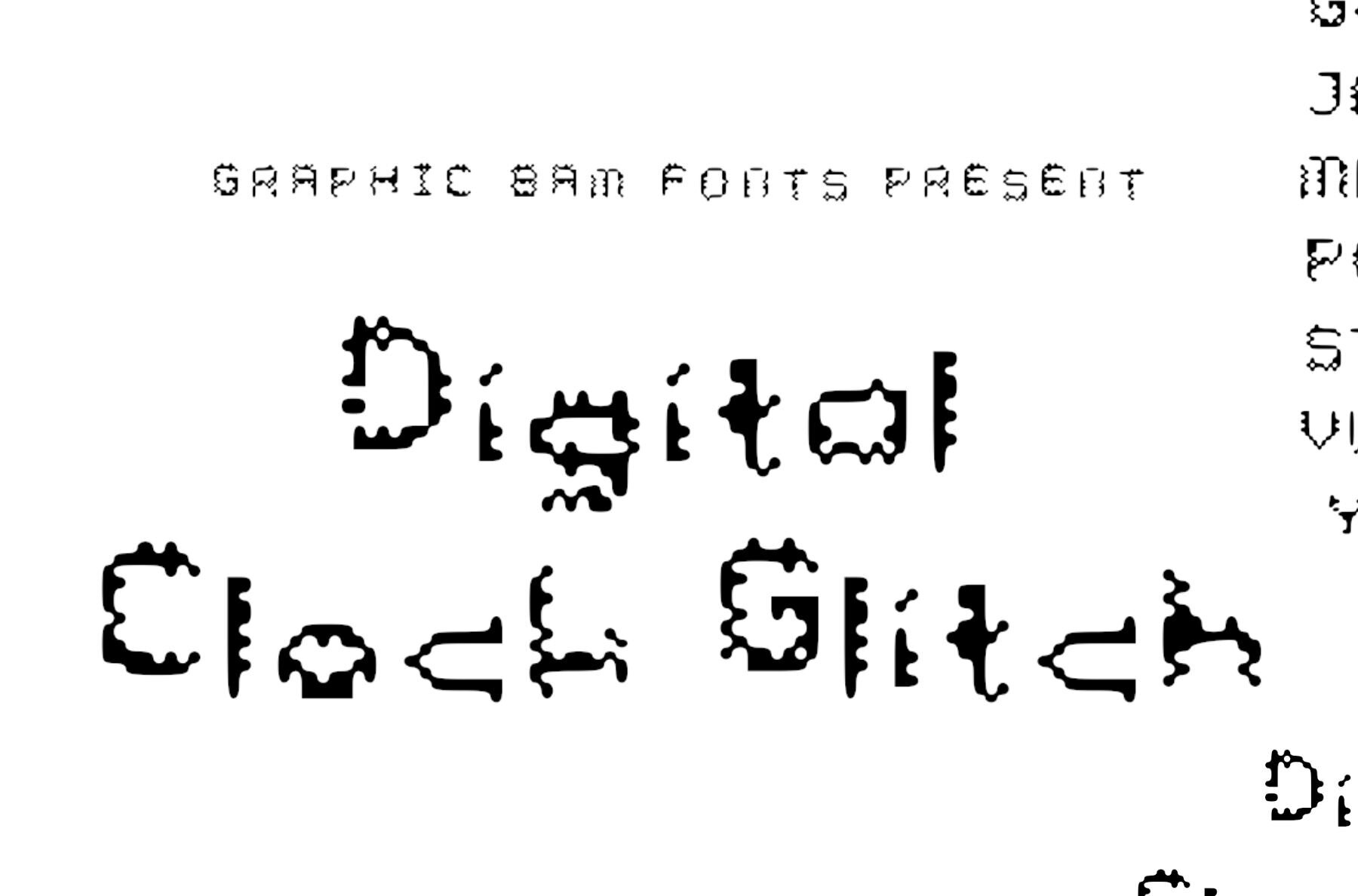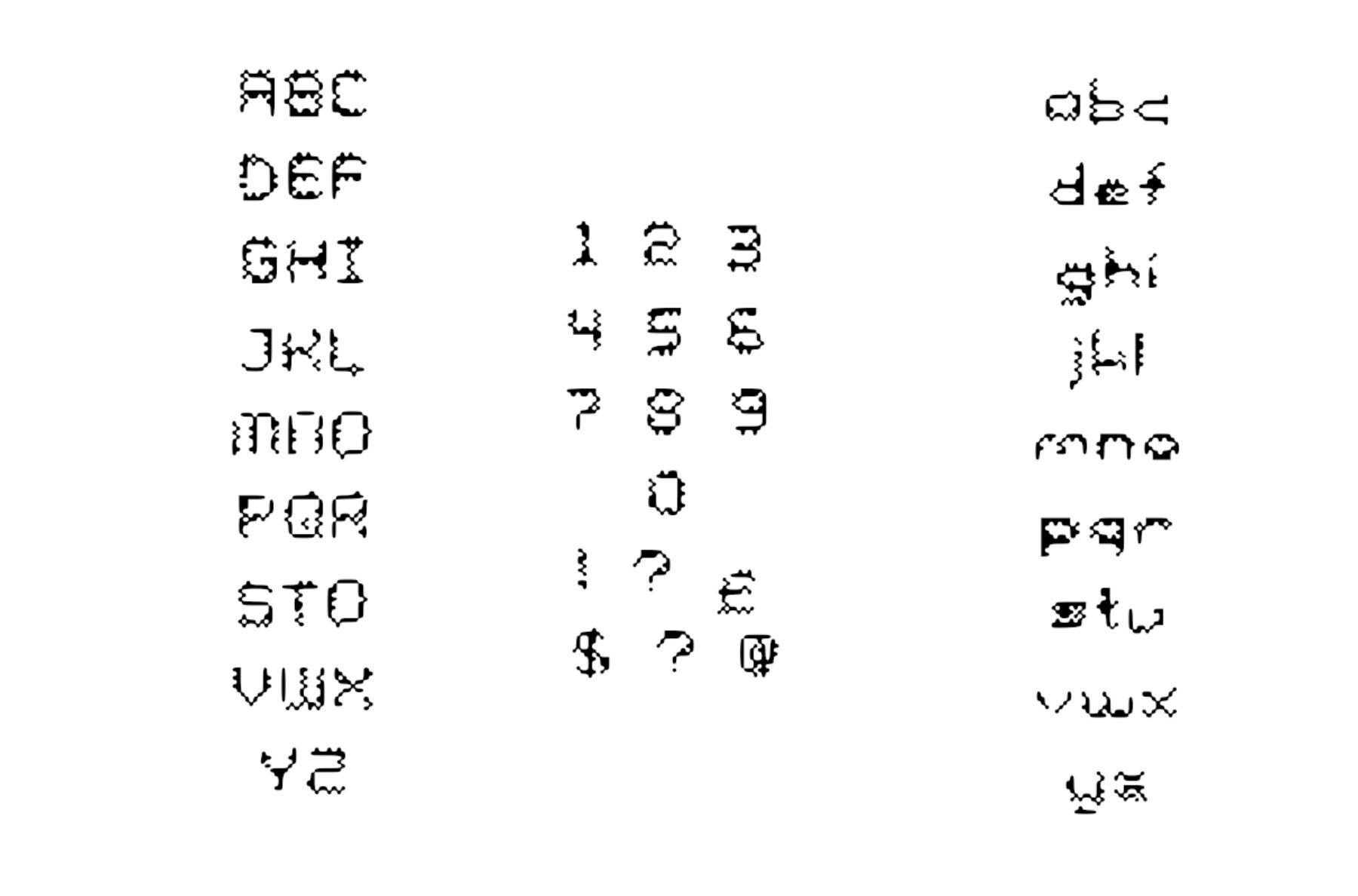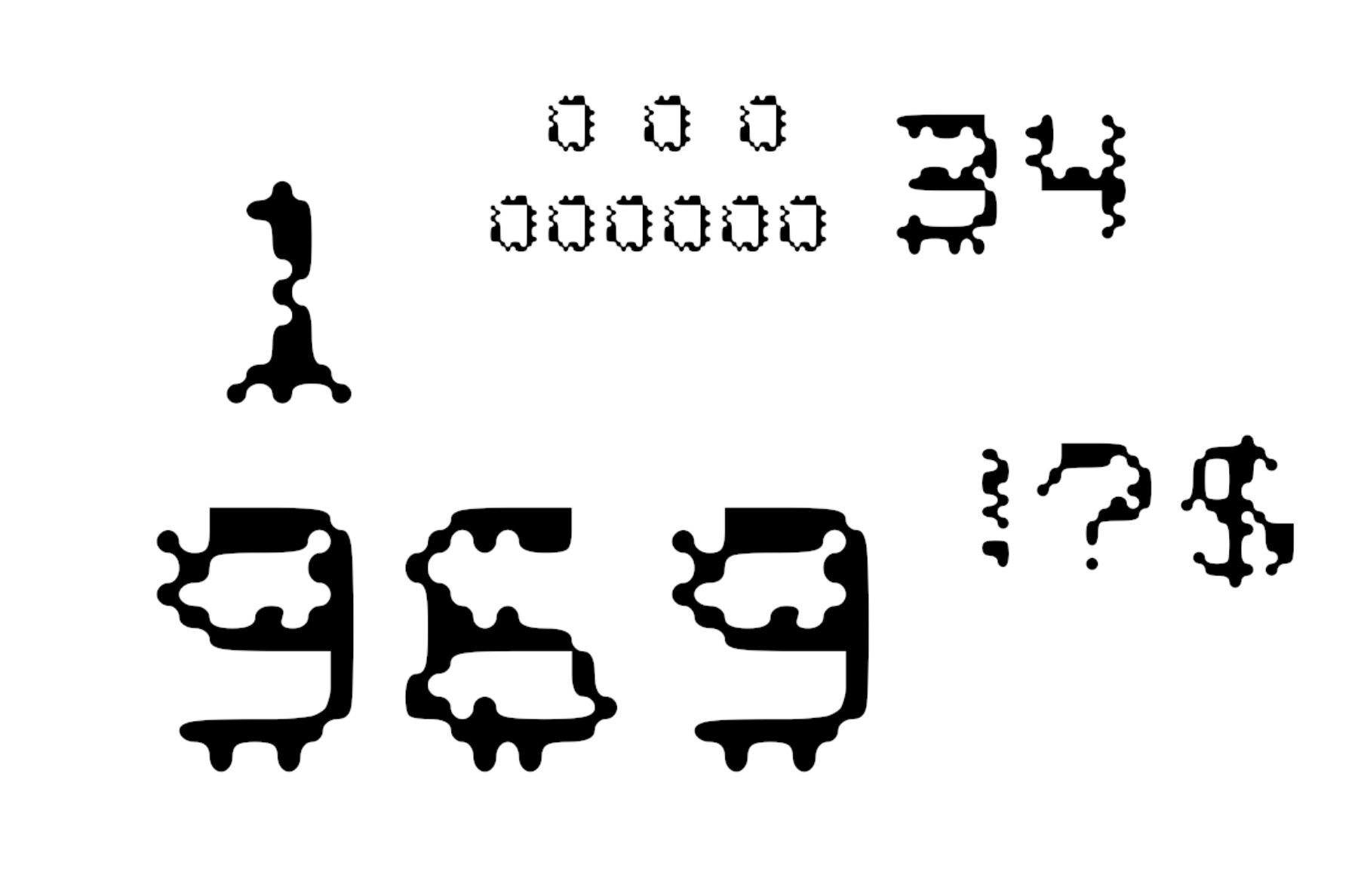
Digital Clock Glitch Font
Digital Clock Glitch
Step into the world of unique digital artistry with Digital Clock Glitch—a typeface that captures the essence of digital imperfection. This captivating font offers both uppercase and lowercase letters, making it versatile for a range of creative projects. Its distinct distorted aesthetic is perfect for those who are passionate about web dynamics or glitch art.Digital Clock Glitch Typeface